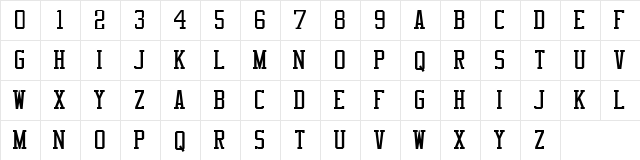
NBA Magic Regular
Design Context for NBA Magic Typeface
NBA Magic is a composed and adaptable typeface that performs quietly and consistently across a wide range of design contexts.